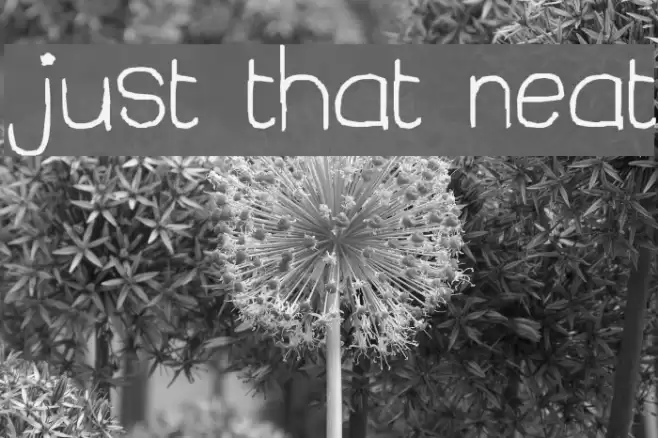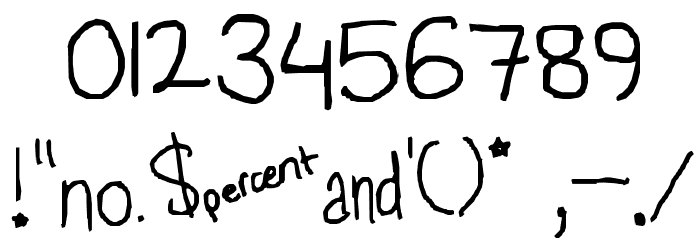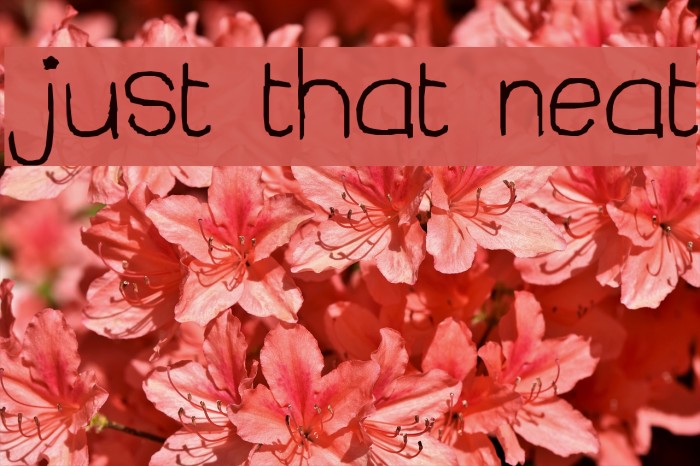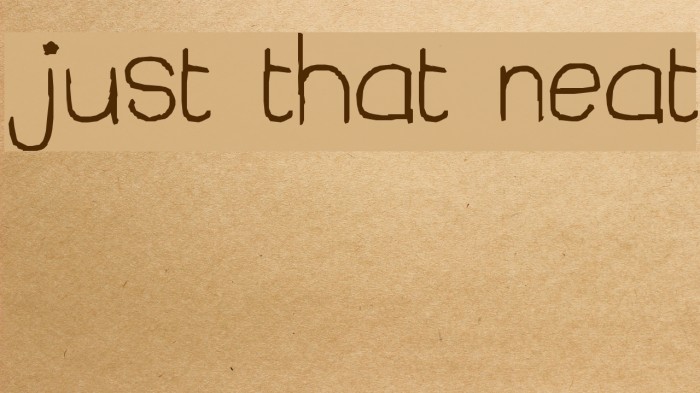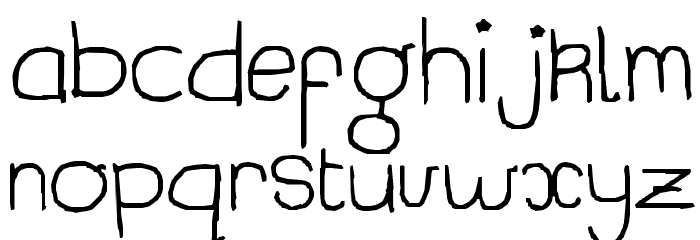
just that neat Font
just that neat Description
This font exhibits a playful and casual handwritten style, characterized by its uneven strokes and slightly irregular letterforms. The uppercase letters maintain a consistent height, while the lowercase letters show a more varied baseline, adding to the informal aesthetic. The numerals are bold and clear, matching the overall style of the alphabet. Special characters are creatively integrated, maintaining the font's whimsical nature. The strokes are moderately thick, providing good readability while retaining a hand-drawn feel. This font is ideal for projects that require a personal touch, such as greeting cards, children's books, or informal branding.
A playful, handwritten font with uneven strokes and a casual style.
- Proposed Projects: Greeting cards, children's books, informal branding, personal notes.
- Category: Handwritten
- Overall Style: Casual, Playful
- Use Case: Headlines, Informal text, Creative projects